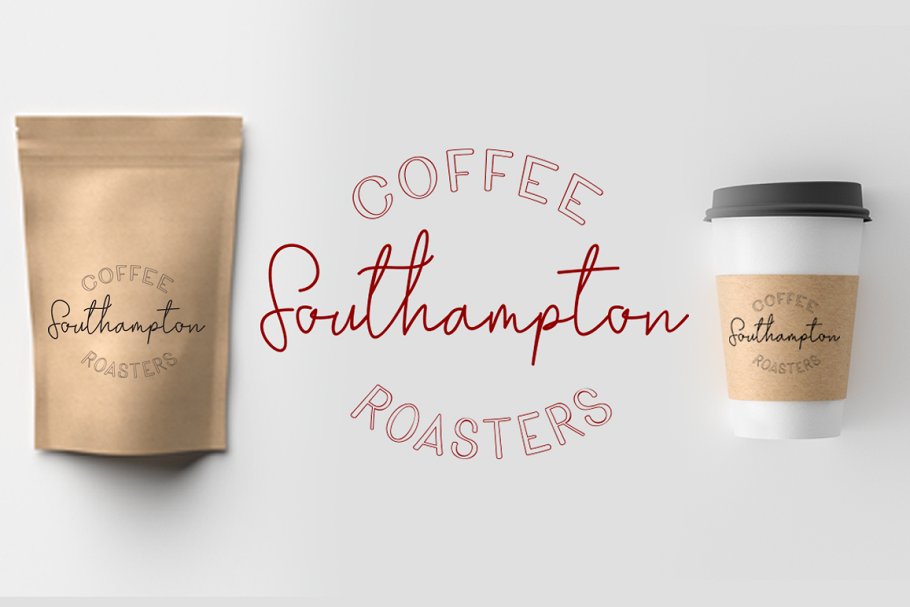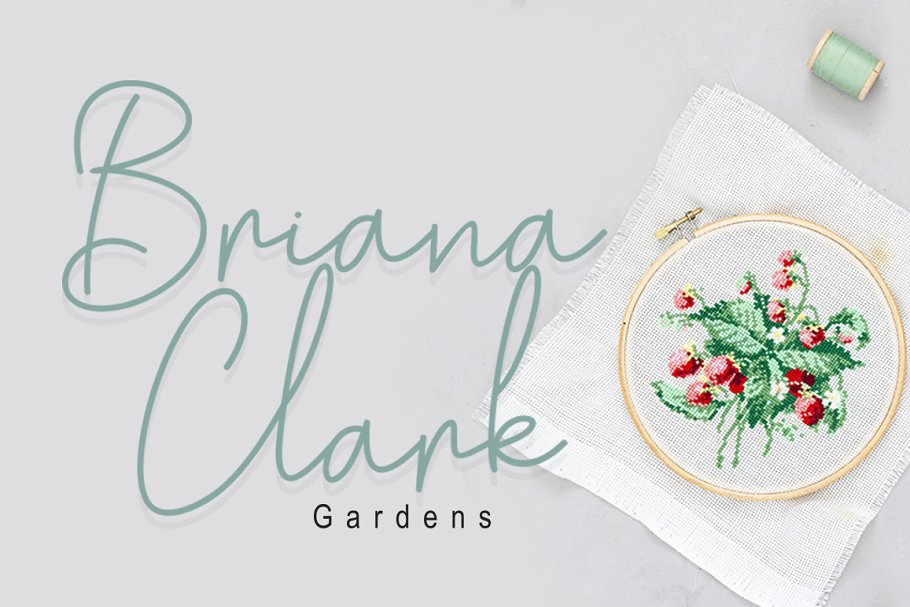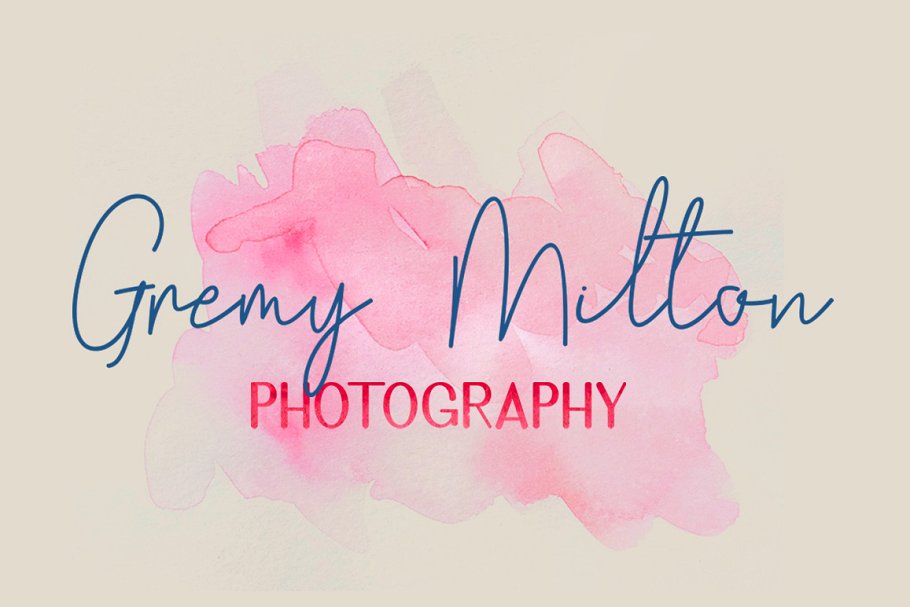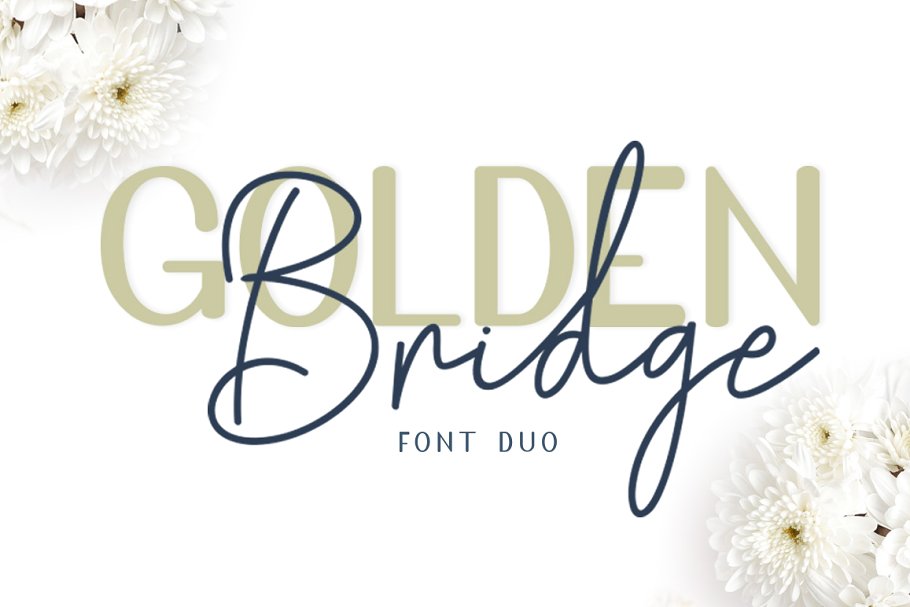
Golden Bridge Font Duo
Hi Font Lovers! Golden Bridge consists of signature script, and sans that have 3 styles, Golden Bridge Font Duo is suitable to add modern flavor to your project. Ideal for logos, handwriting, product packaging, headers, posters, merchandise, social media & greeting cards.